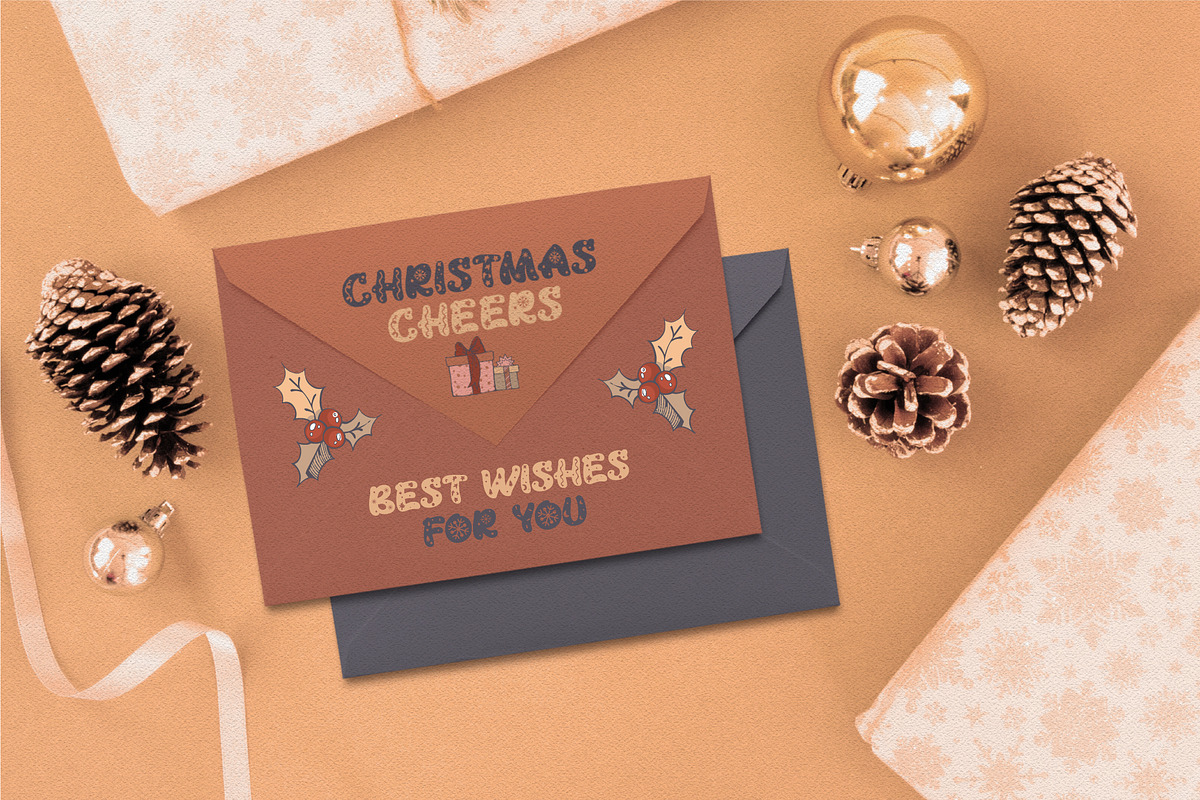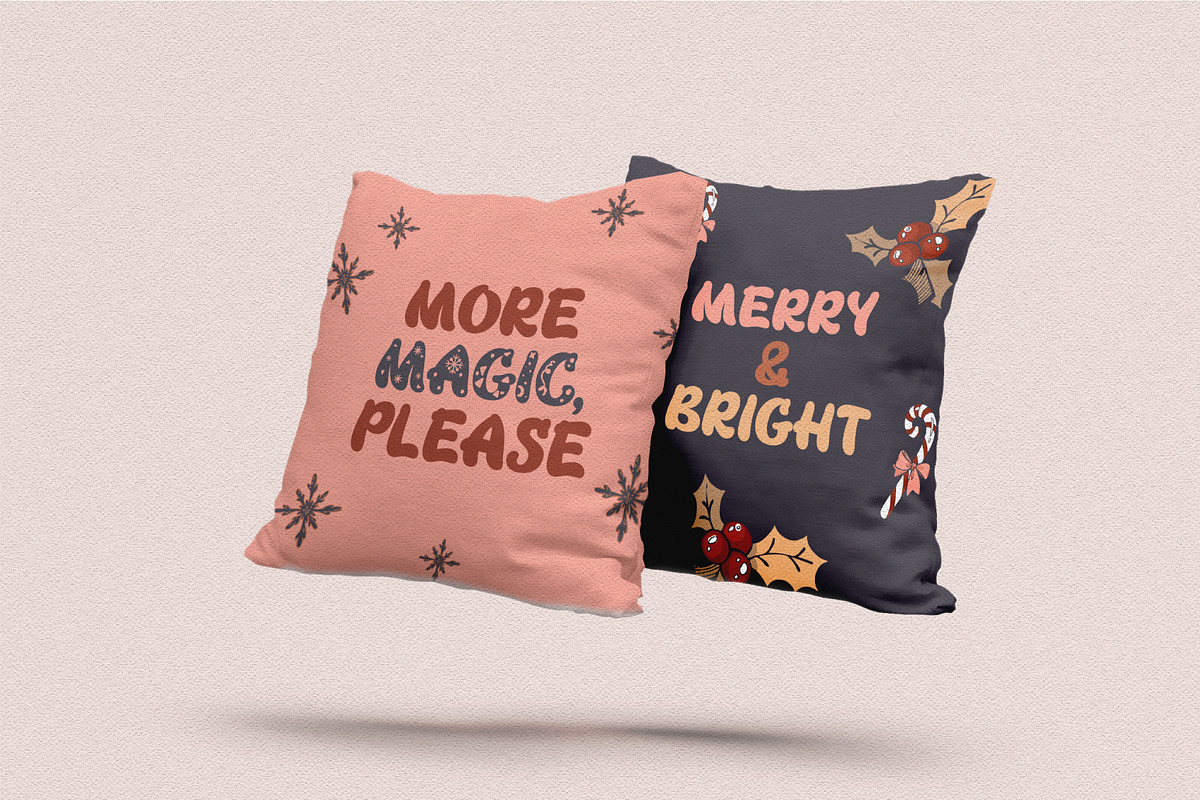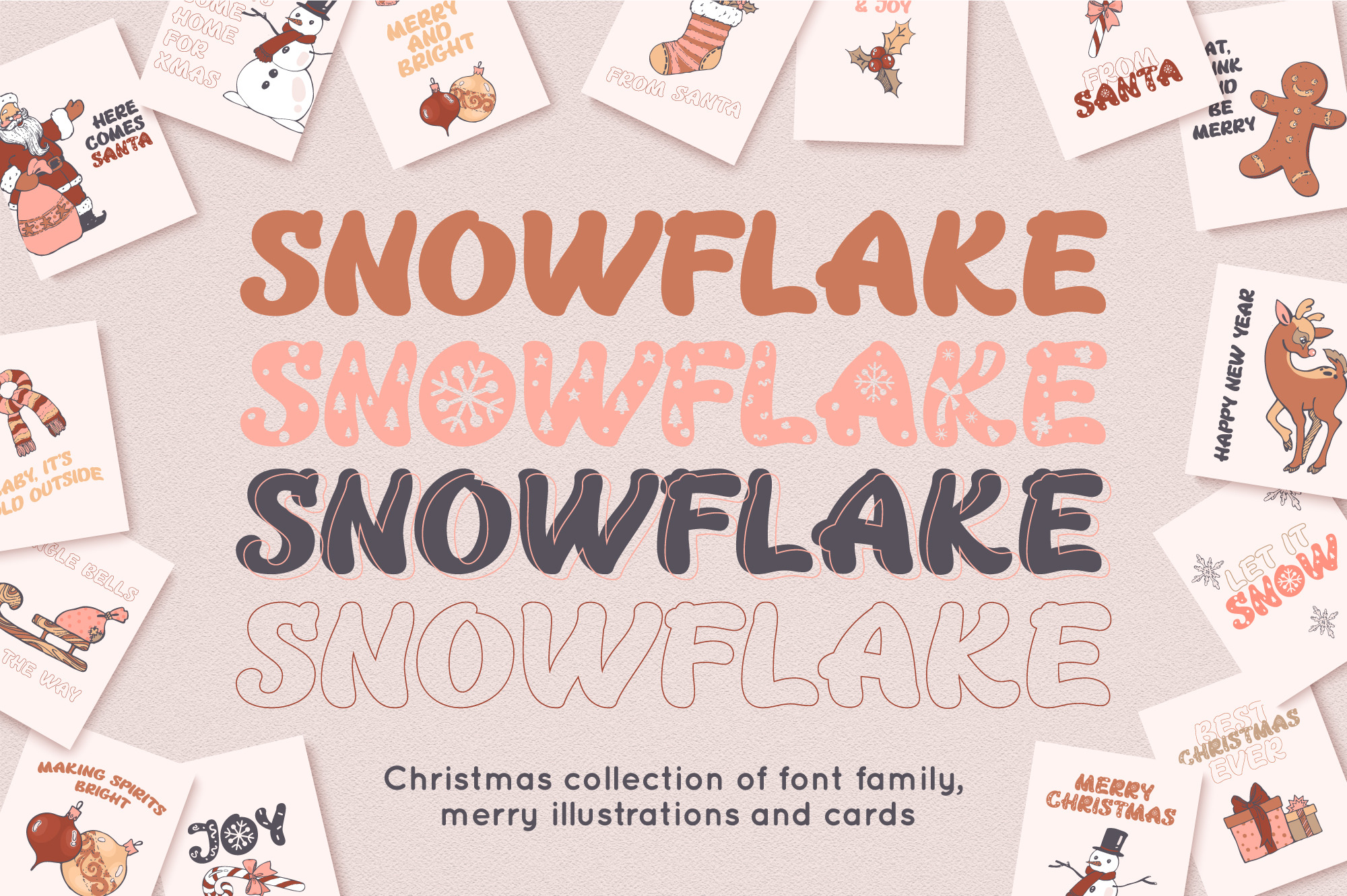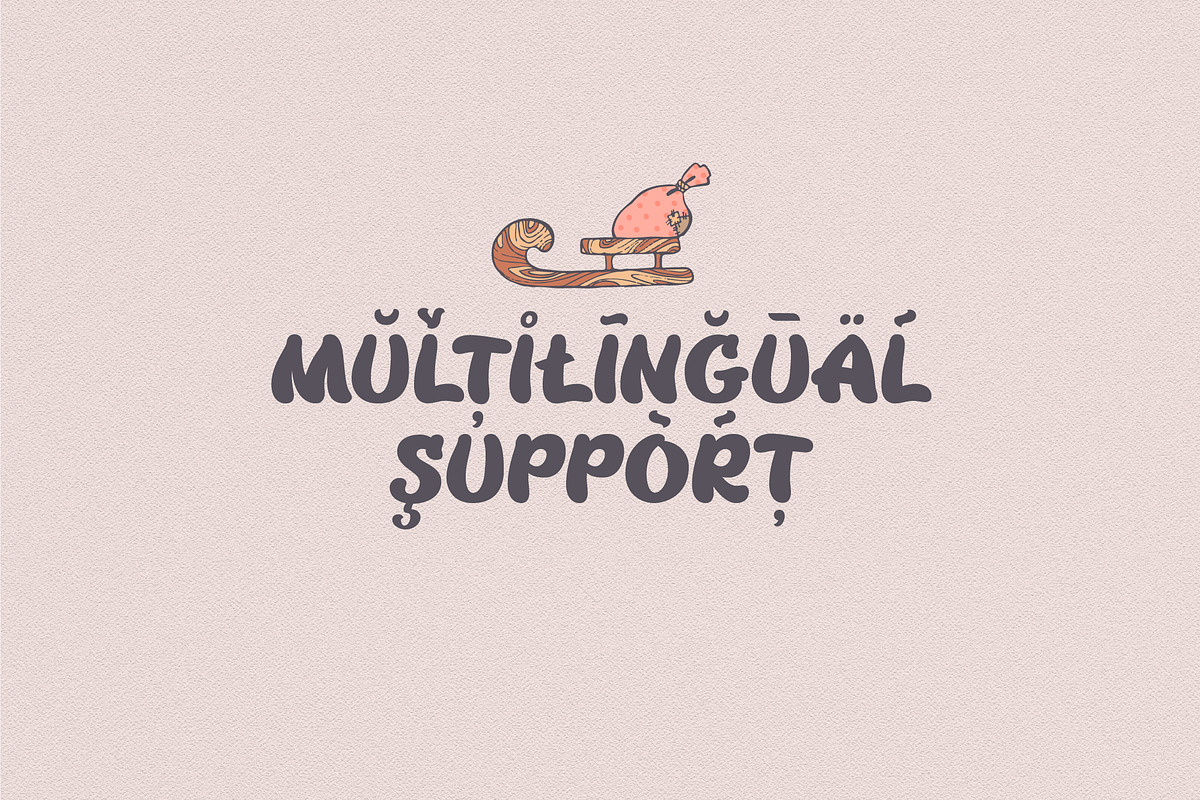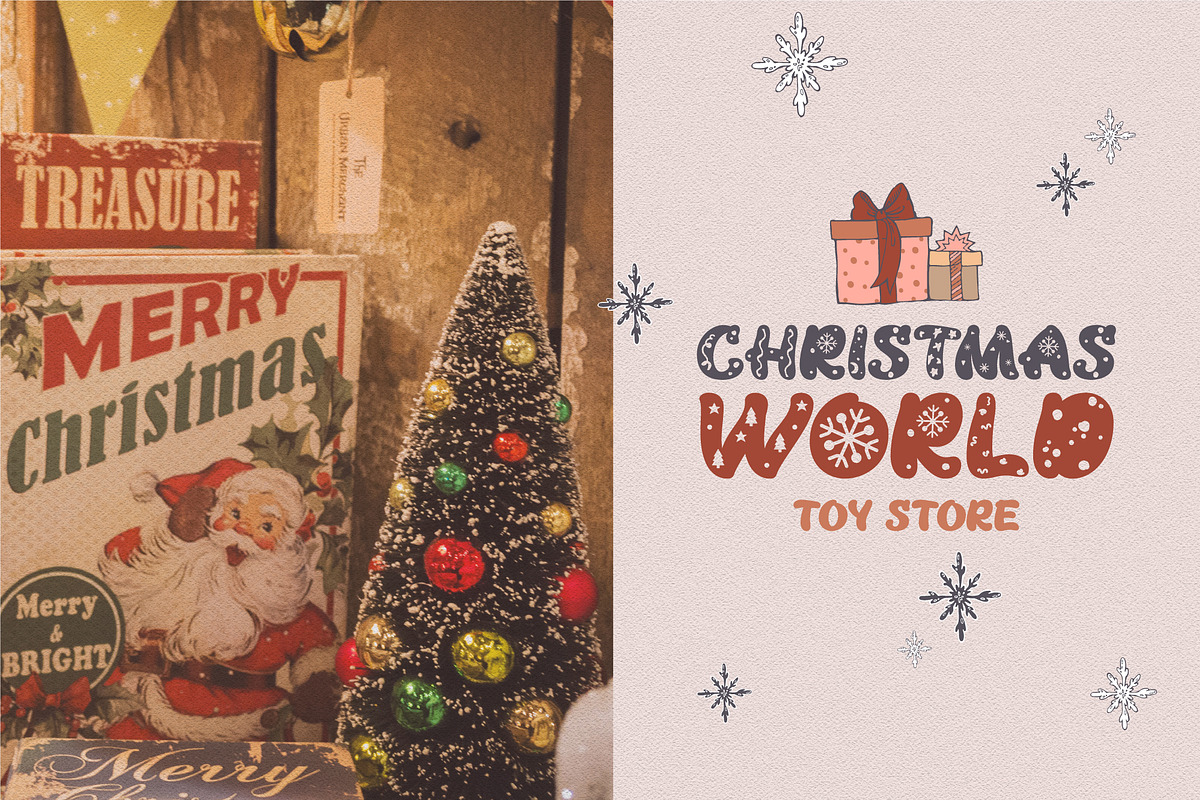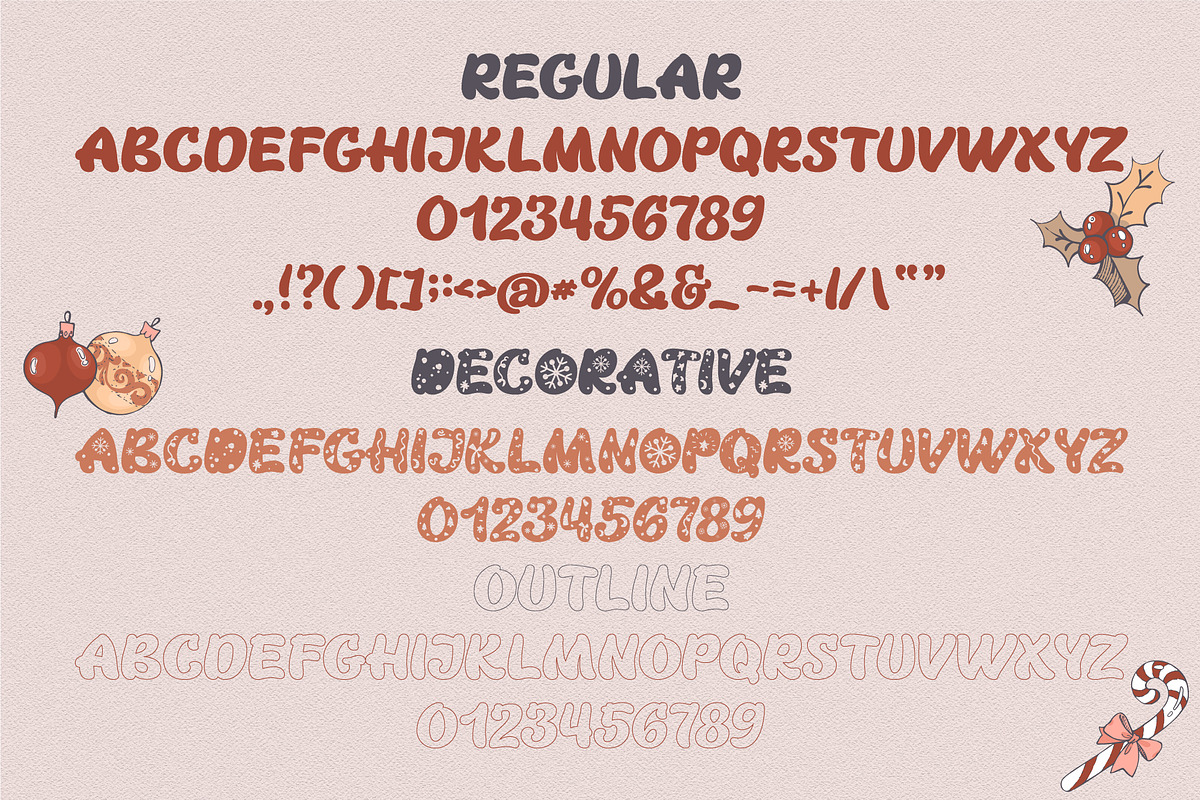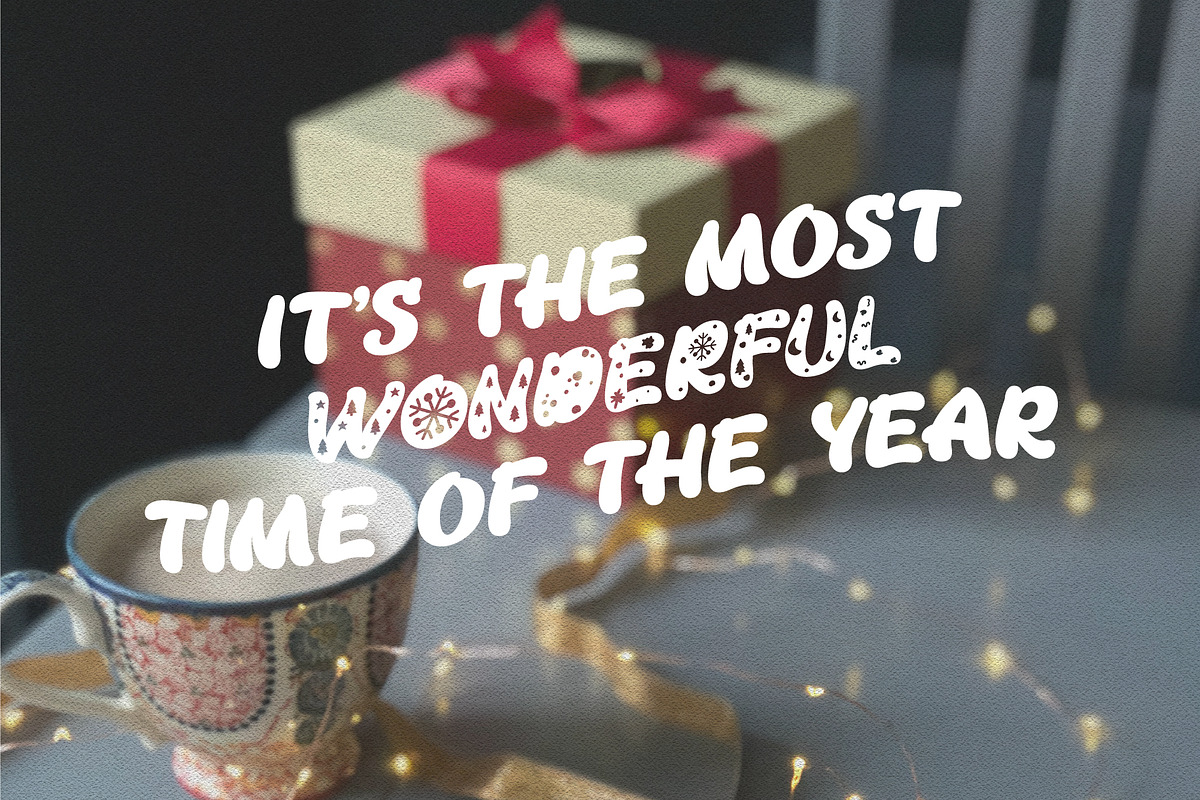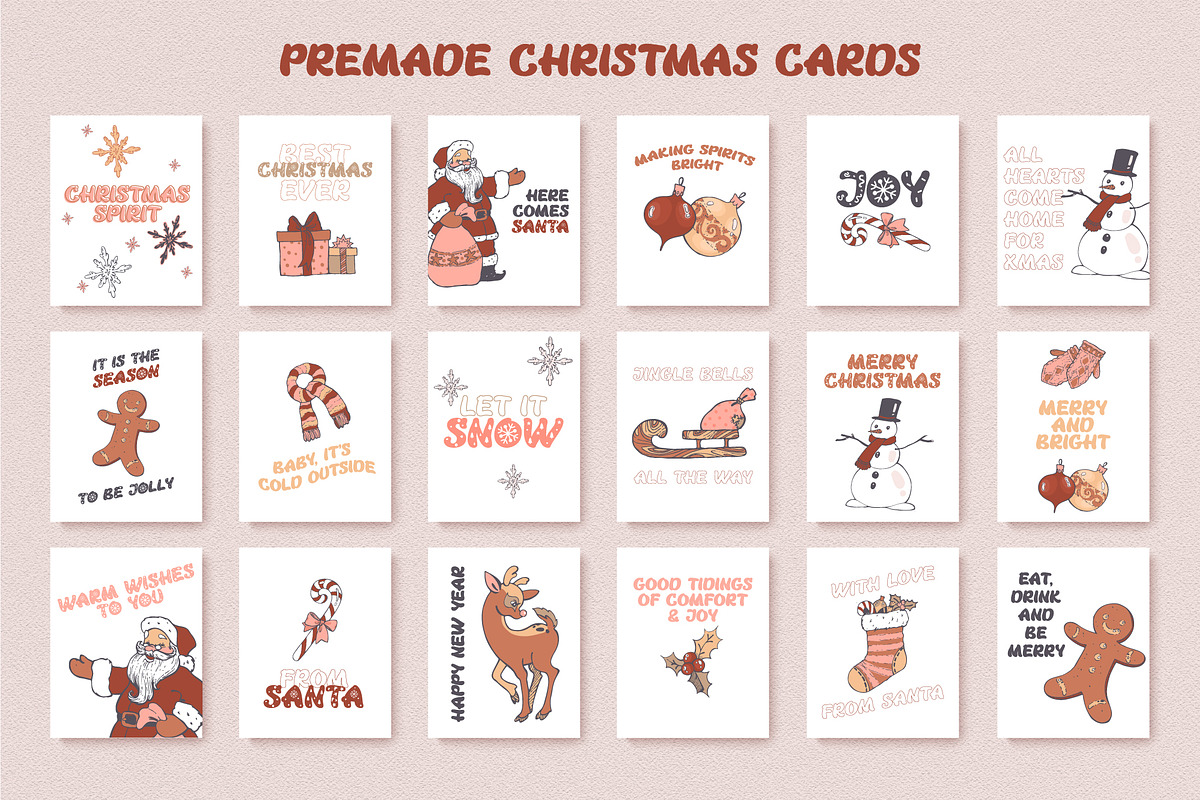
Snowflake Christmas font family
Let me introduce SNOWFLAKE - christmas collection of cute font family, illustrations and pre-made greeting cards.
You can just combine vector illustrations with your text - the possibilities and variations are endless or use touching pre-made greeting cards. With SNOWFLAKE collection you can create your own logo, Christmas greeting cards, invitations or decorate your gifts, crafts or website in a minute!
SNOWFLAKE is a very versatile font, suitable for different project types: for magazine publishing, fashion and art, works great in blogs, posters, flyers, logos, headlines, packaging, advertising, wedding invitations, branding and so much more.
SNOWFLAKE font has uppercase letters, numbers & basic punctuation, multilingual support (French, German, Italian, Norwegian, Portuguese, Spanish, Swedish, Swiss German).